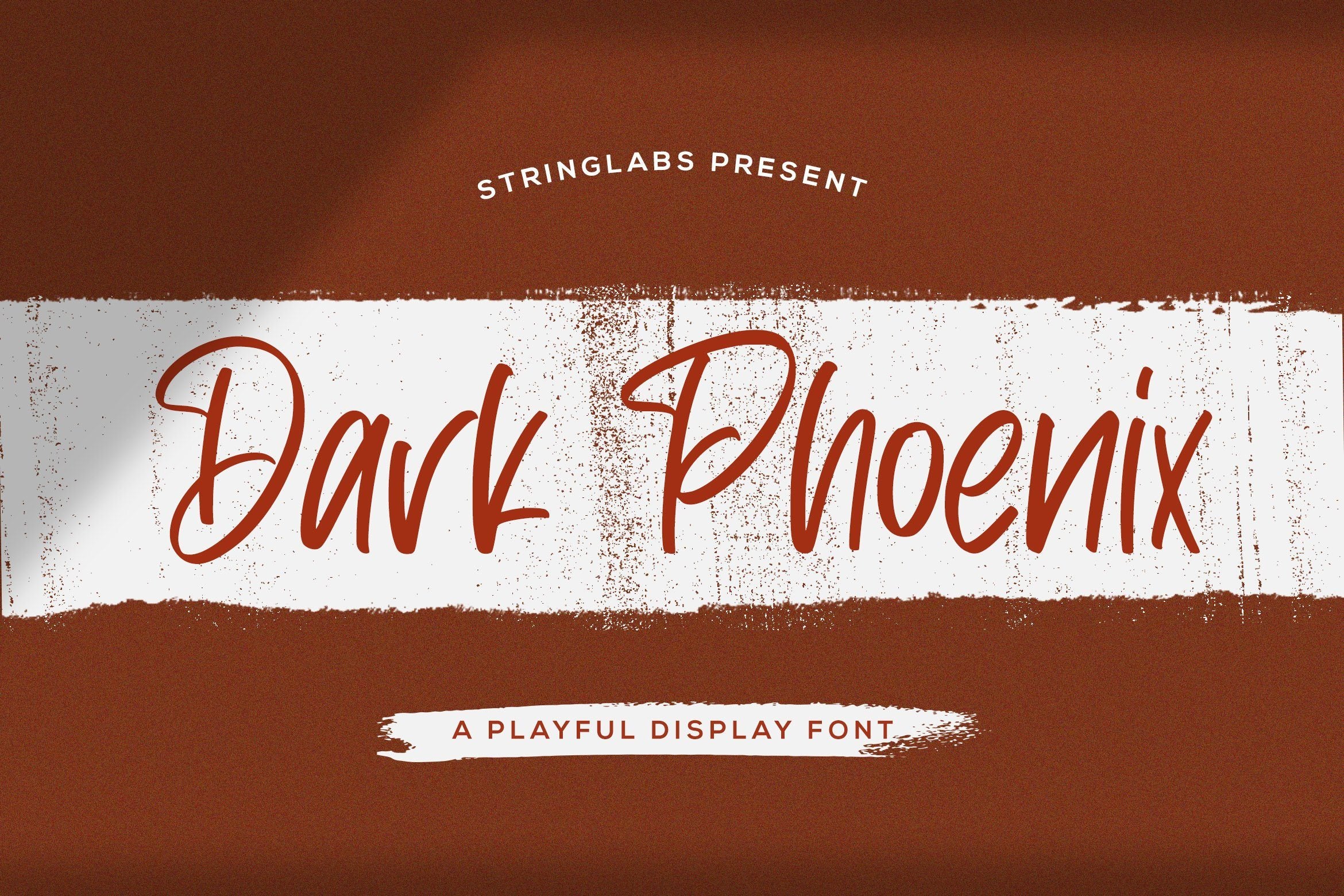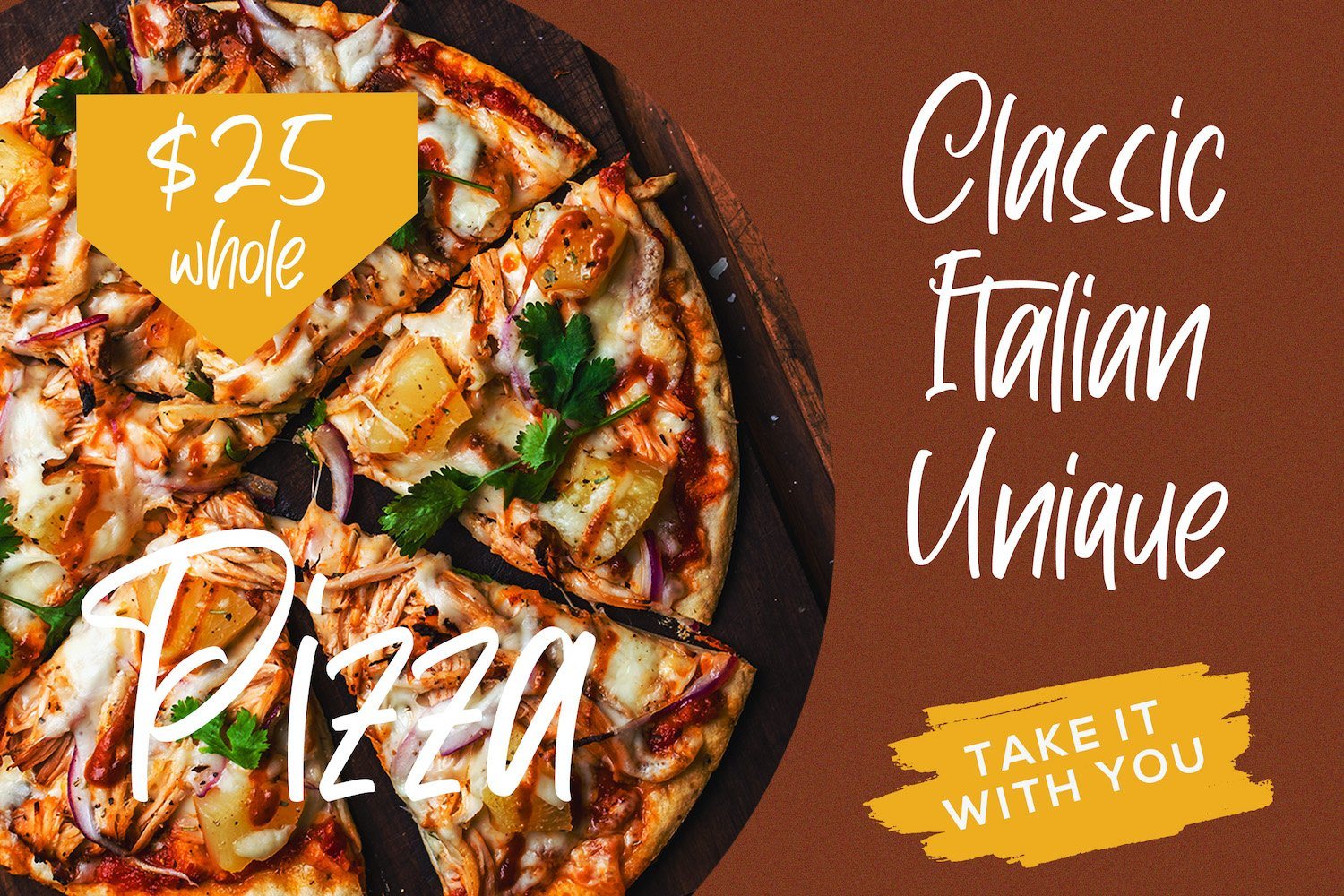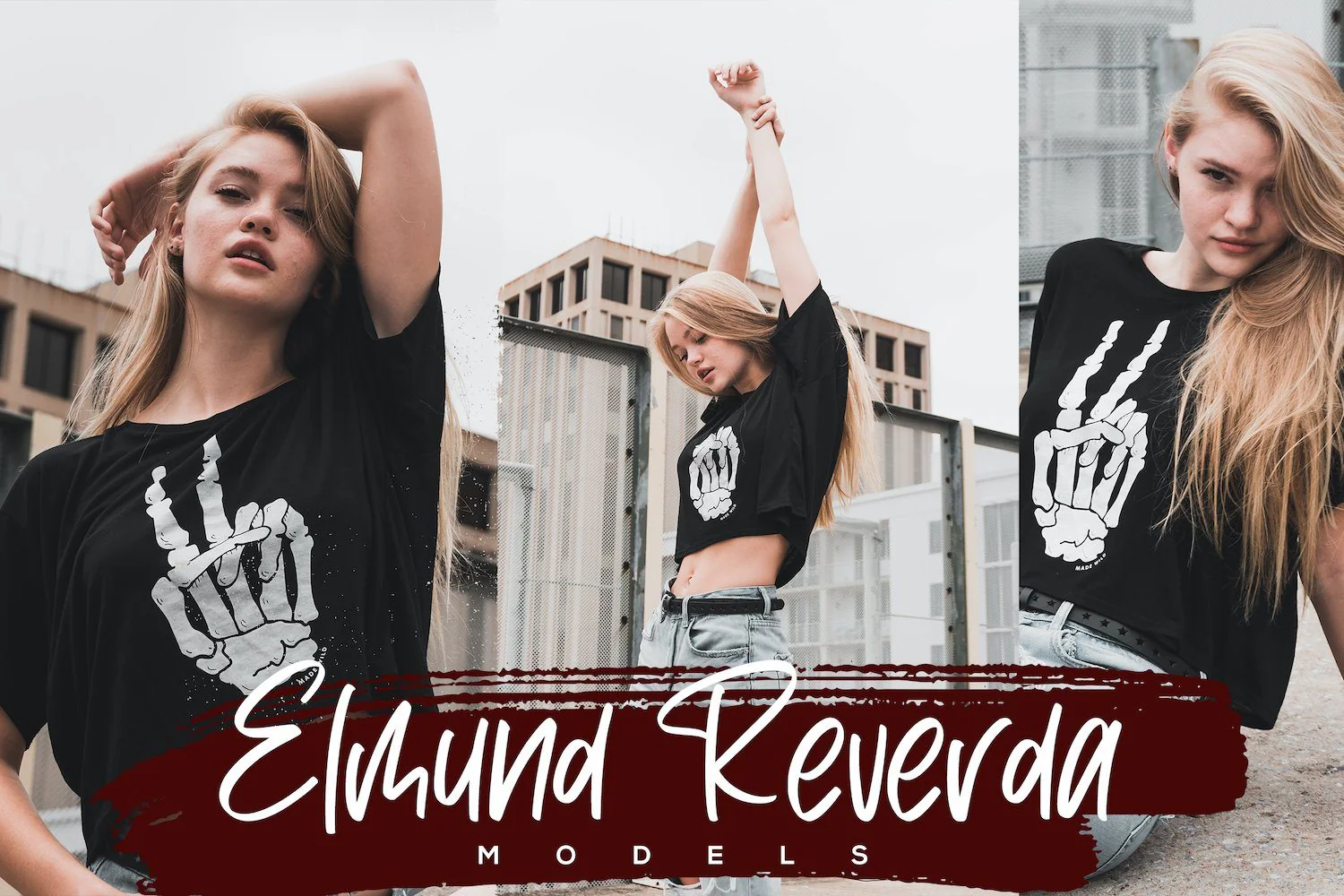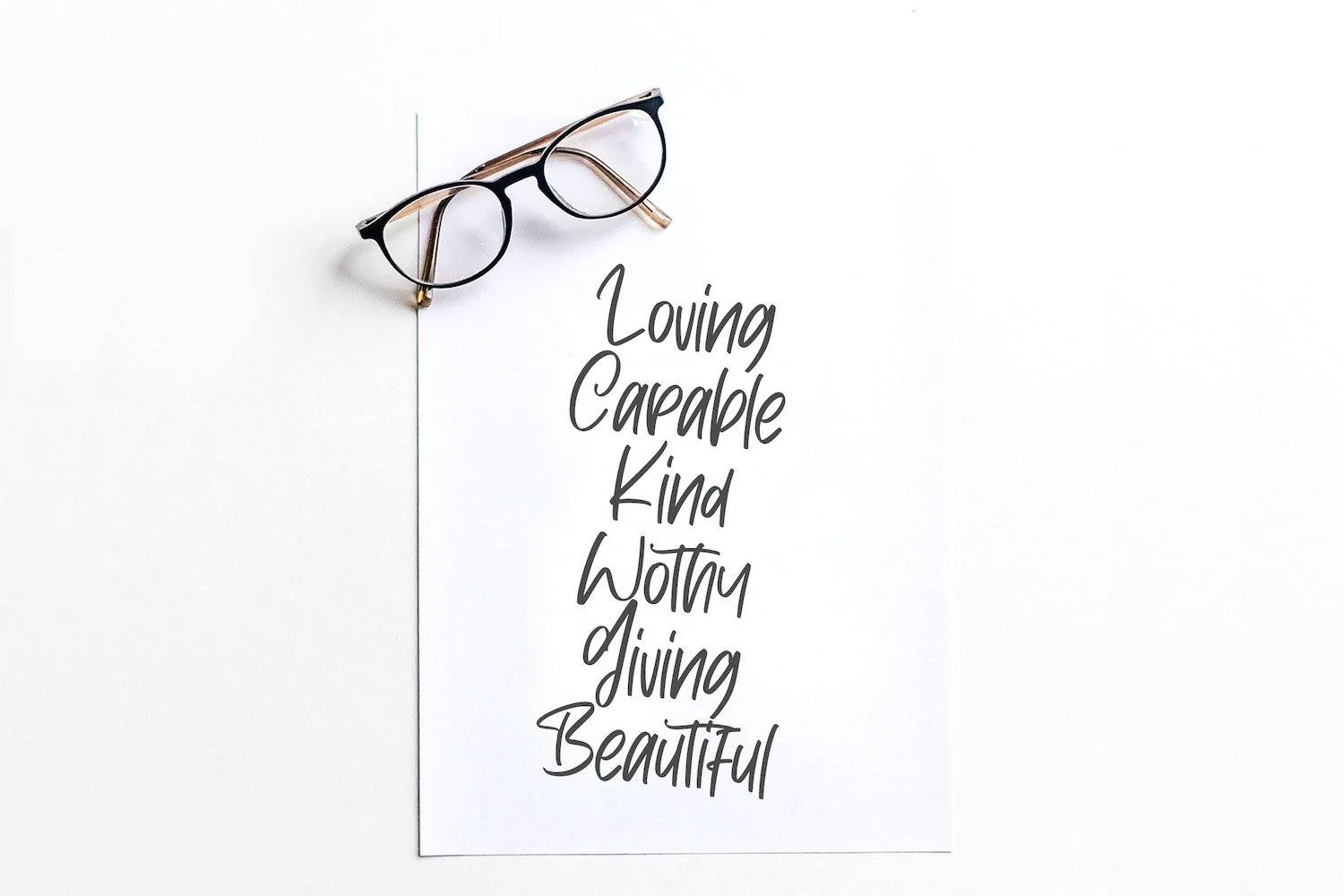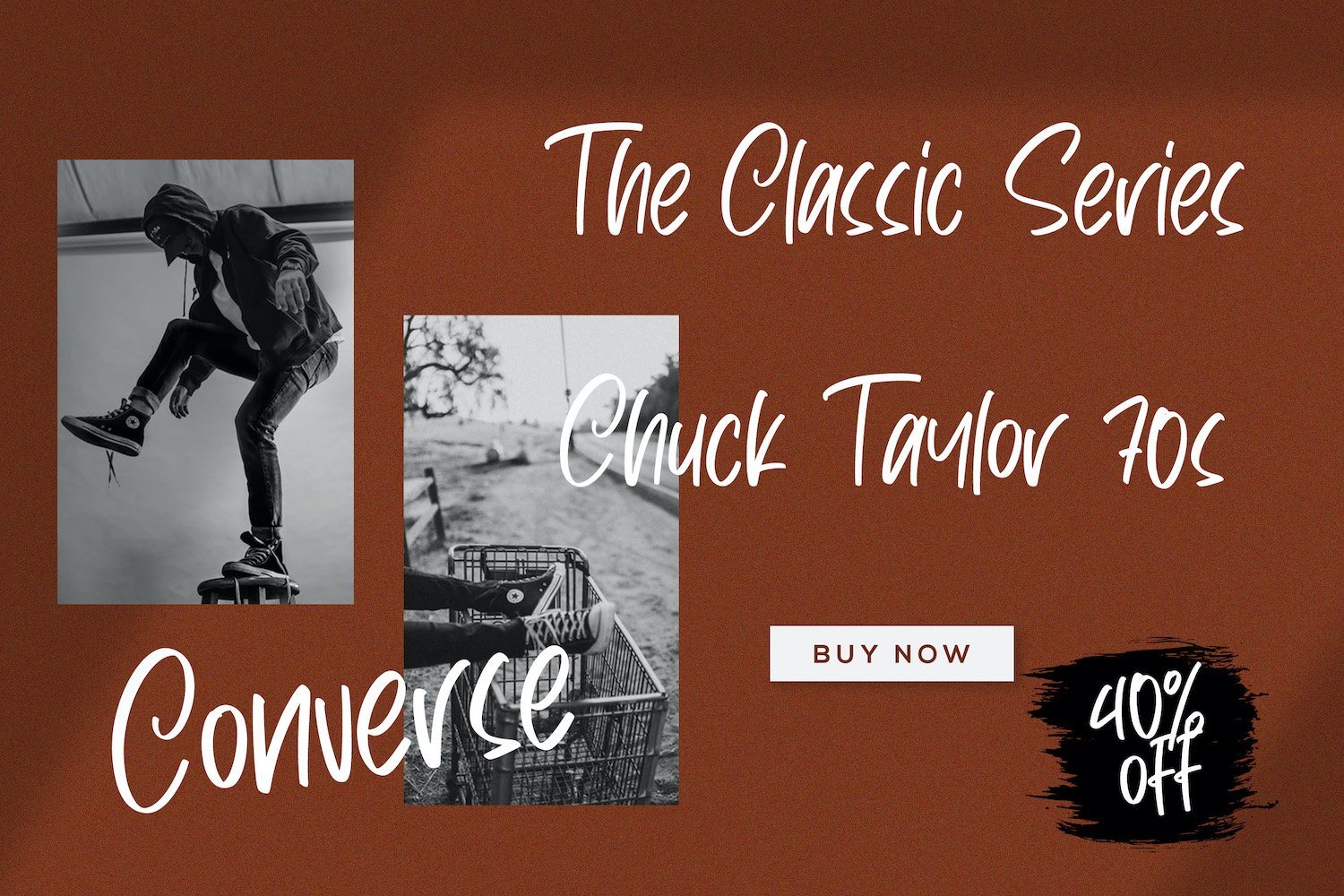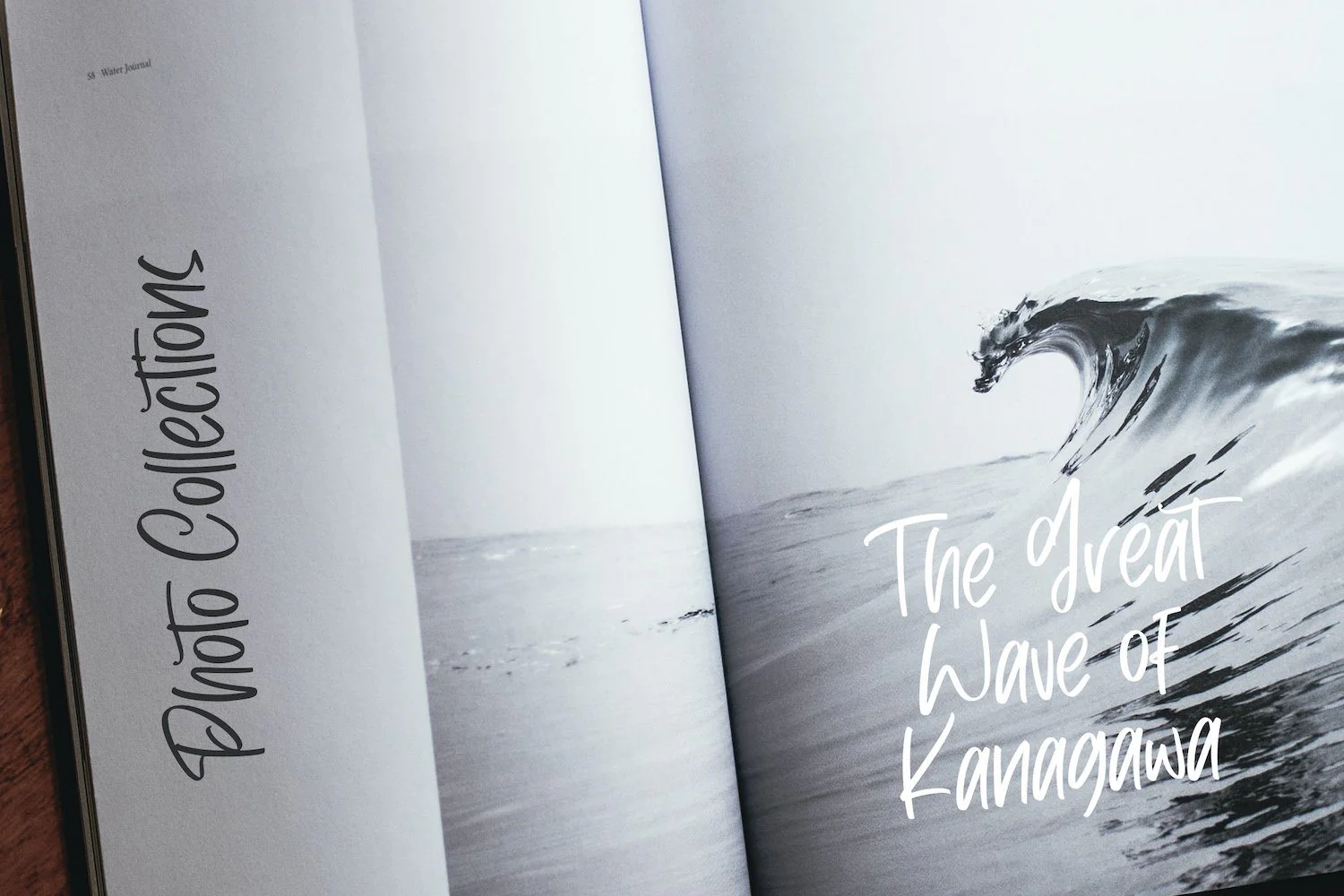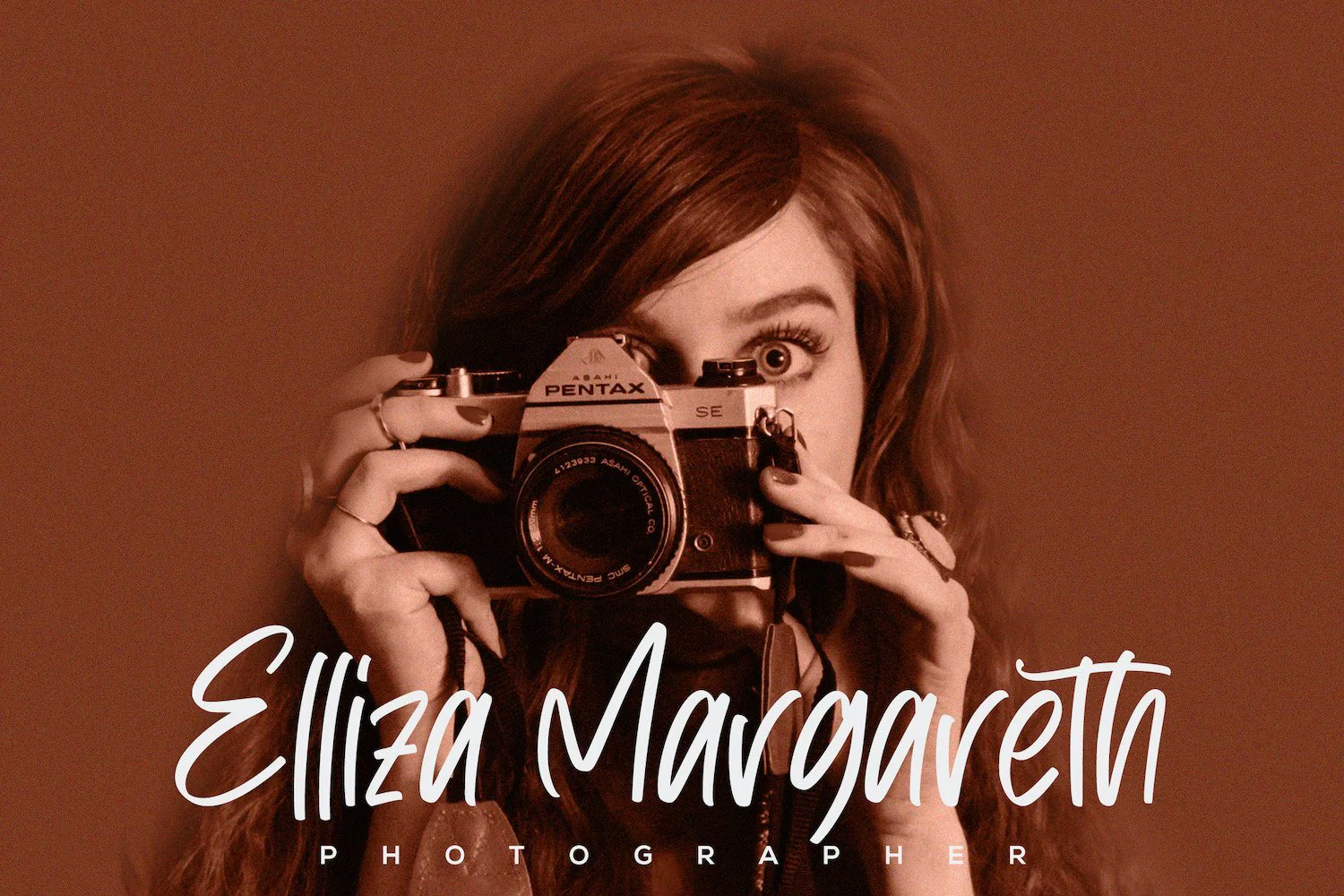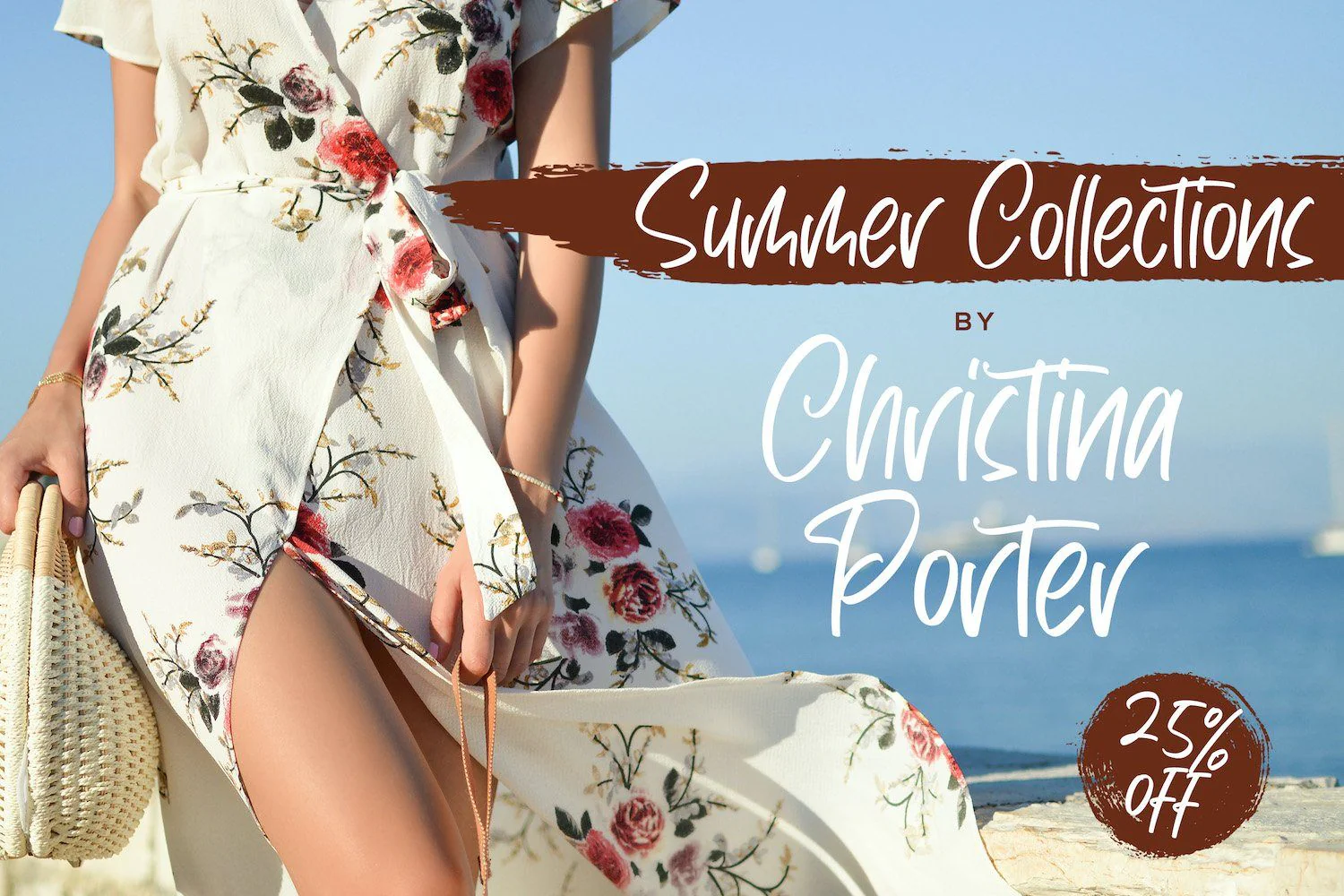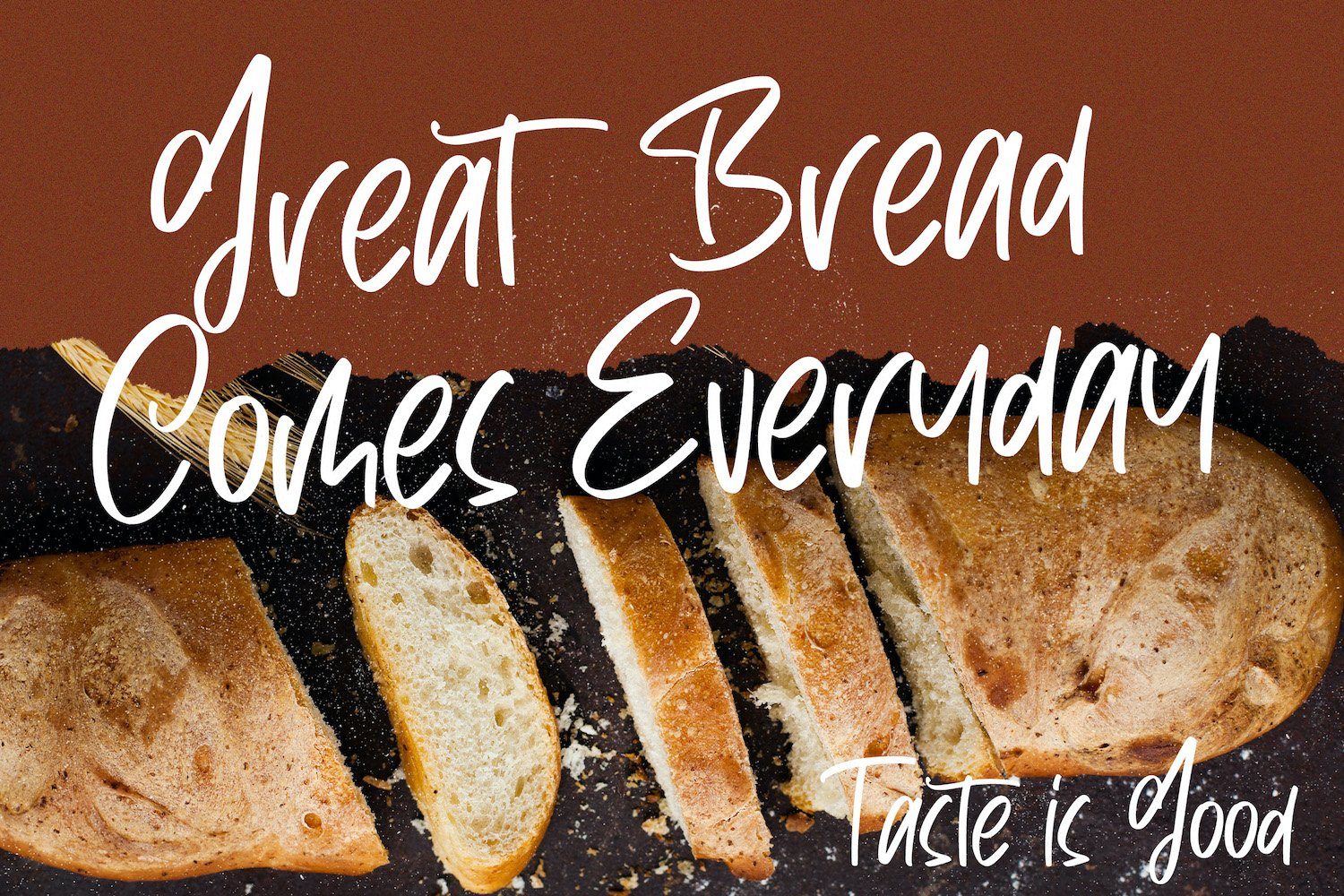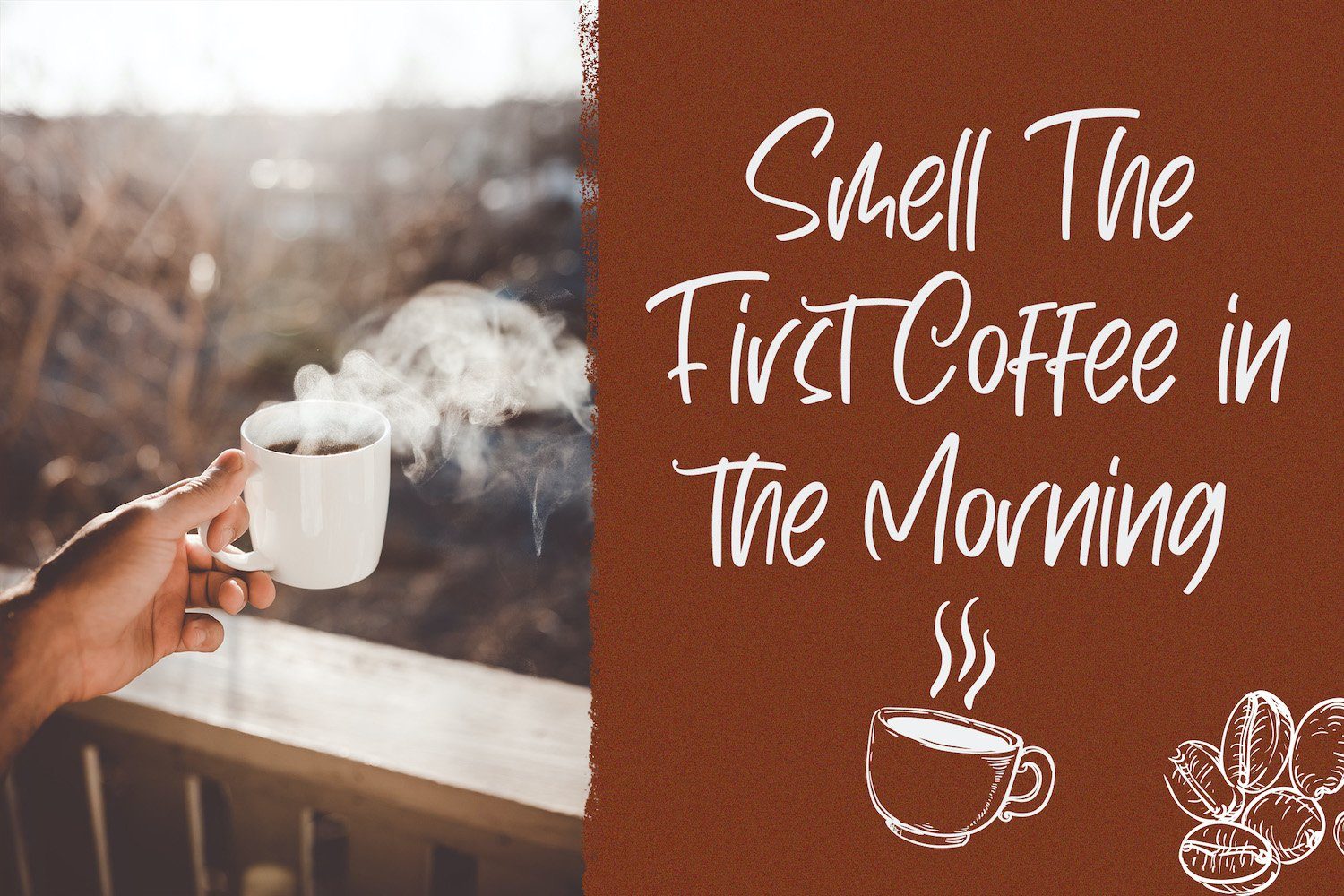
Dark Phoenix - Playful Display Font
Introducing Dark Phoenix - Playful Display Font
Dark Phoenix is a cute, playful, and quirky display font. Its friendly feel makes this font incredibly versatile, fitting a wide range of contexts. Add it to your creative ideas and notice how it makes them stand out!